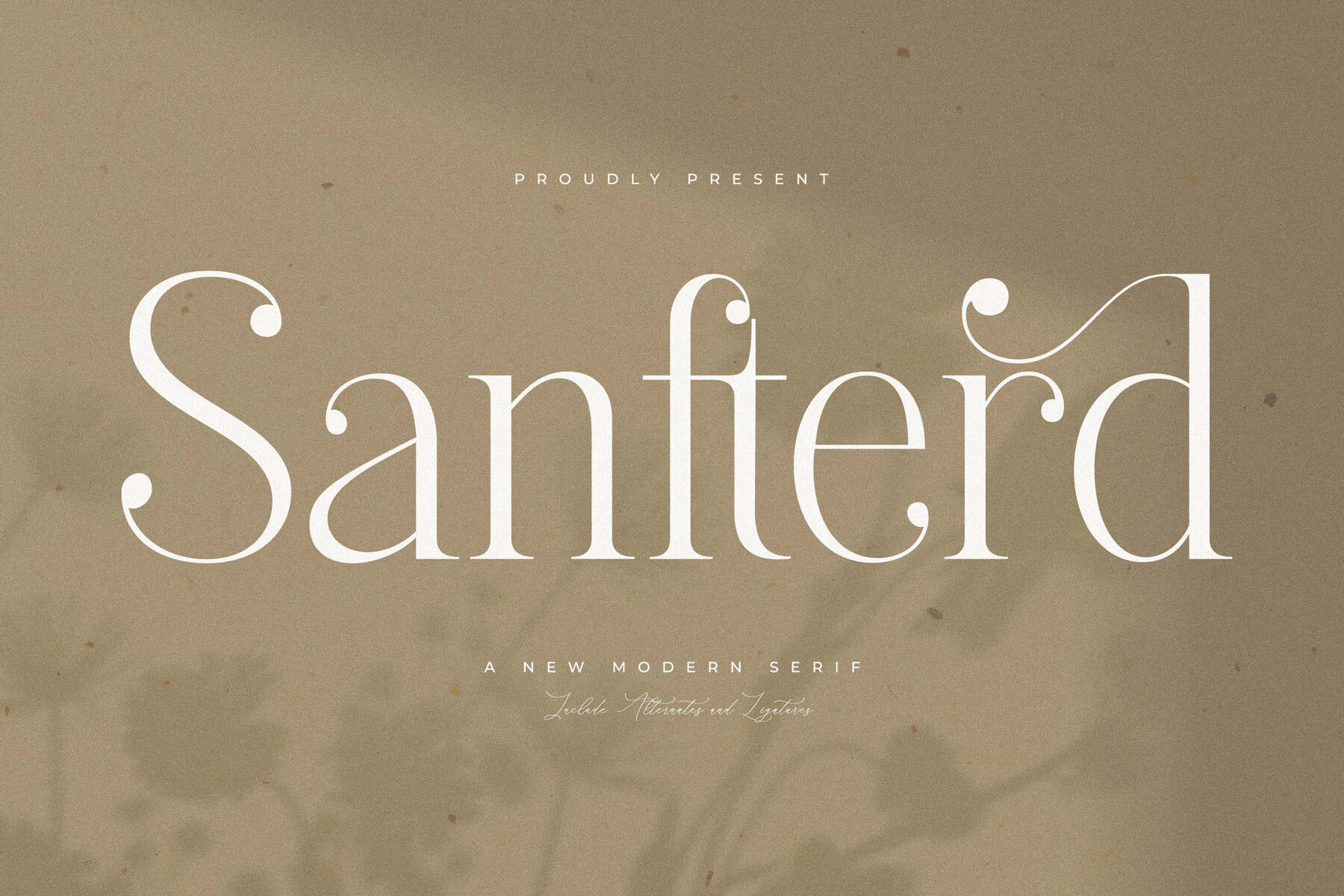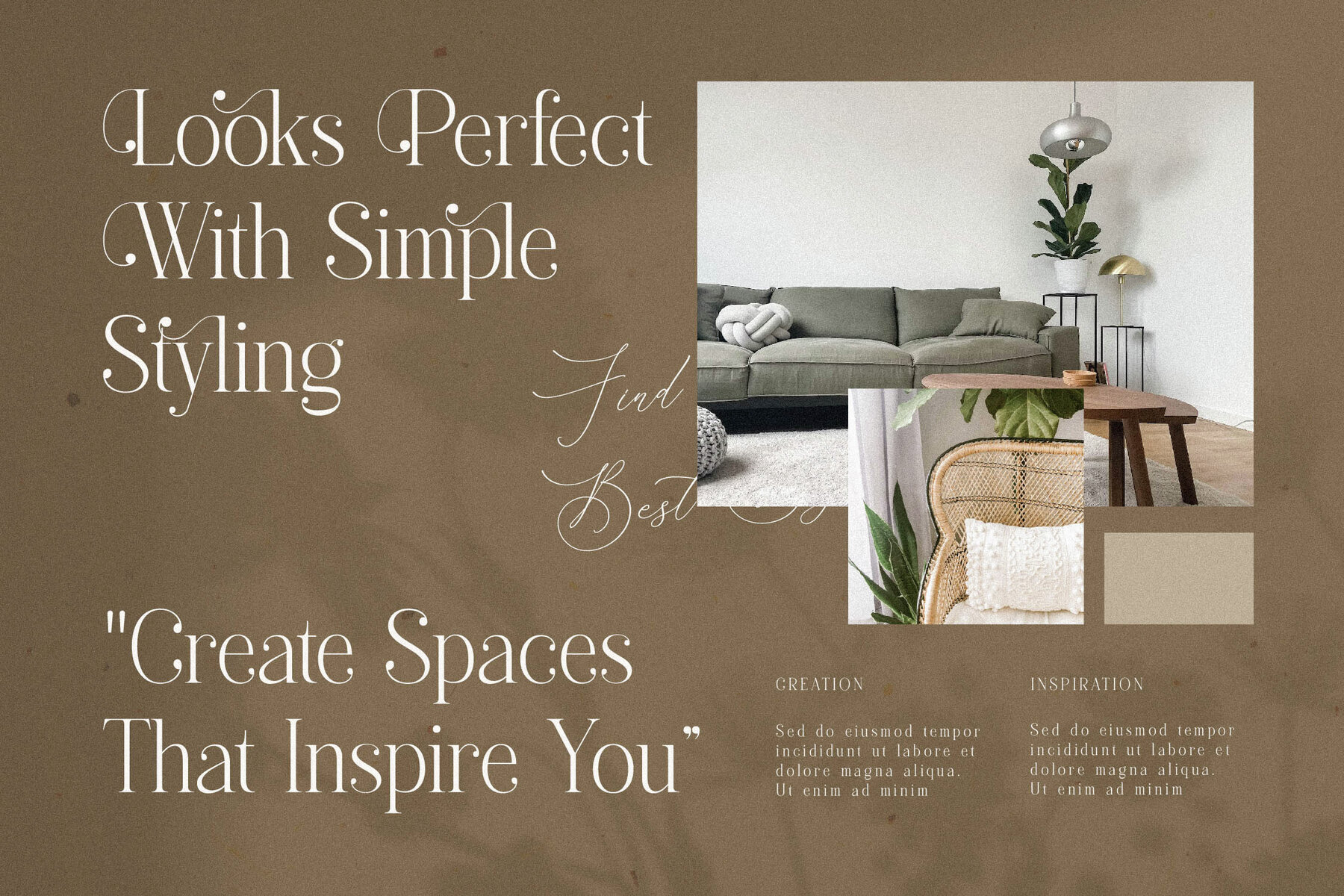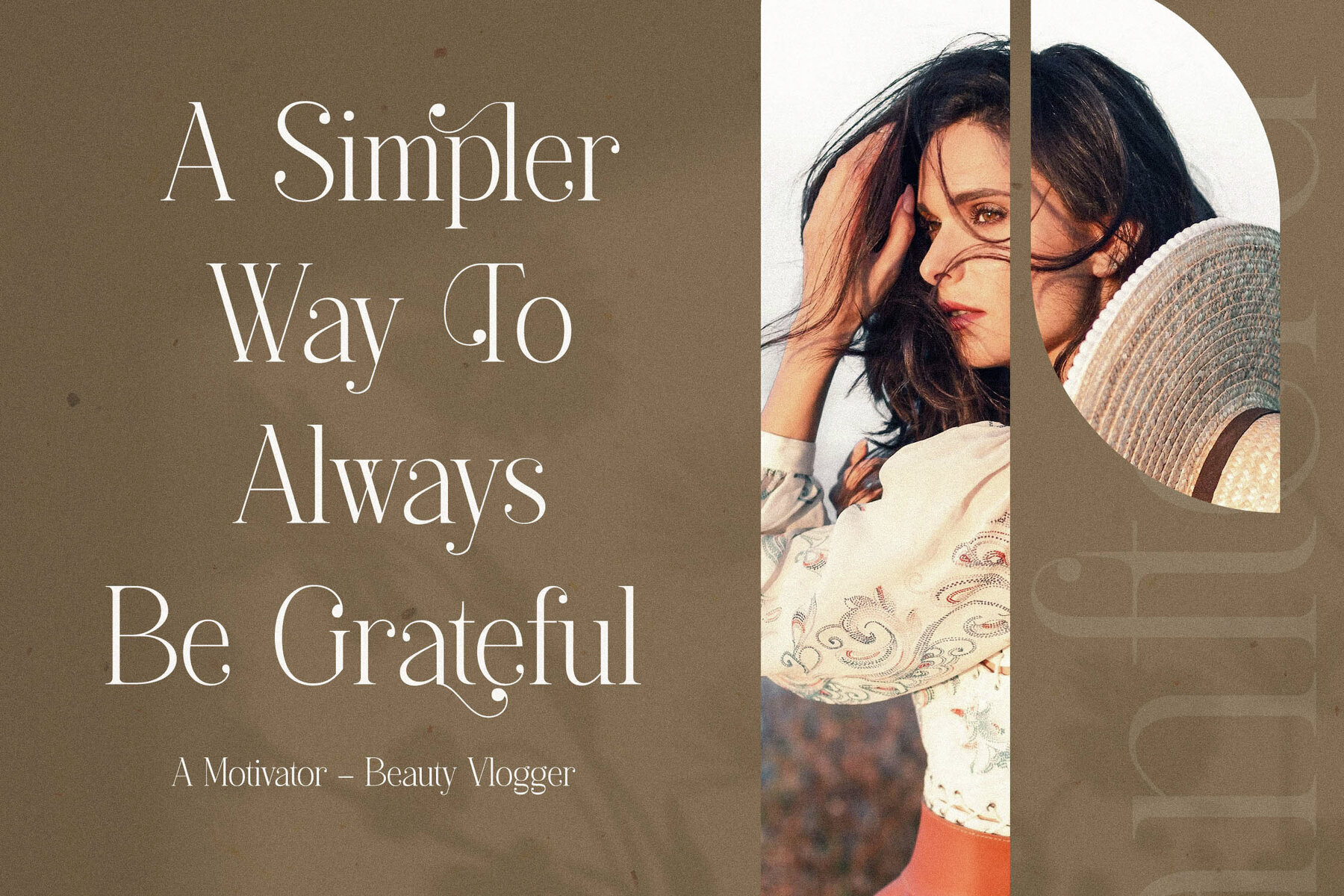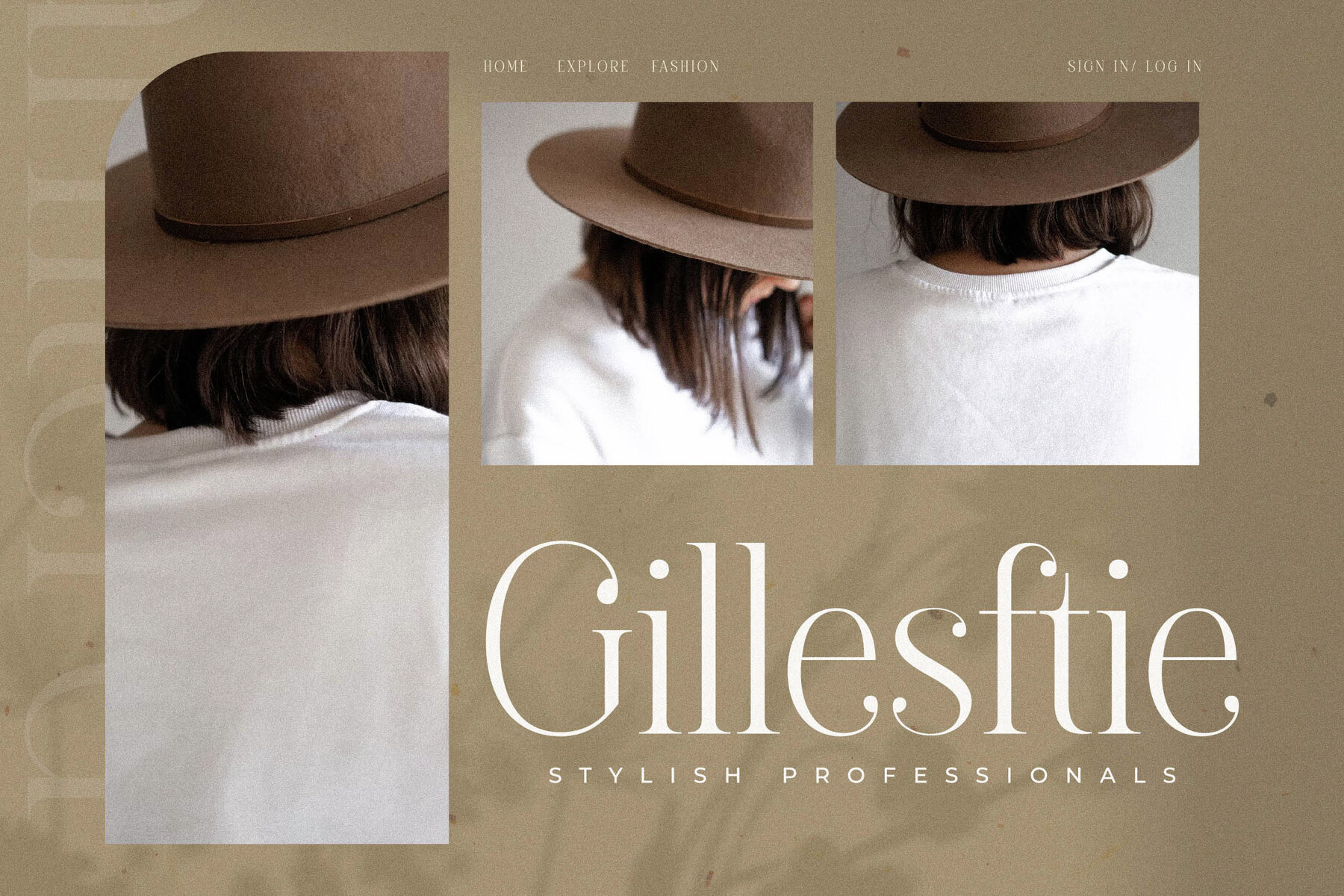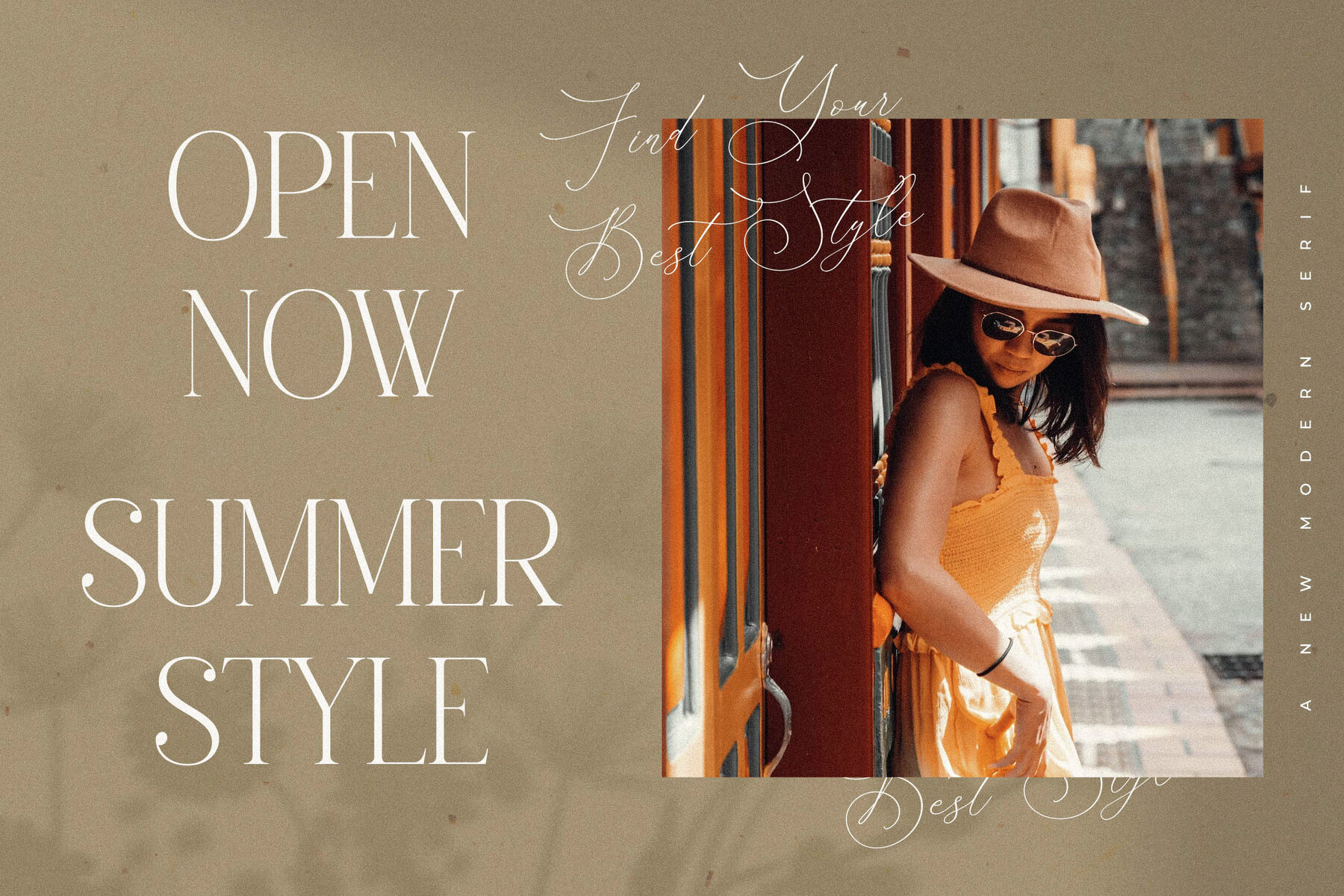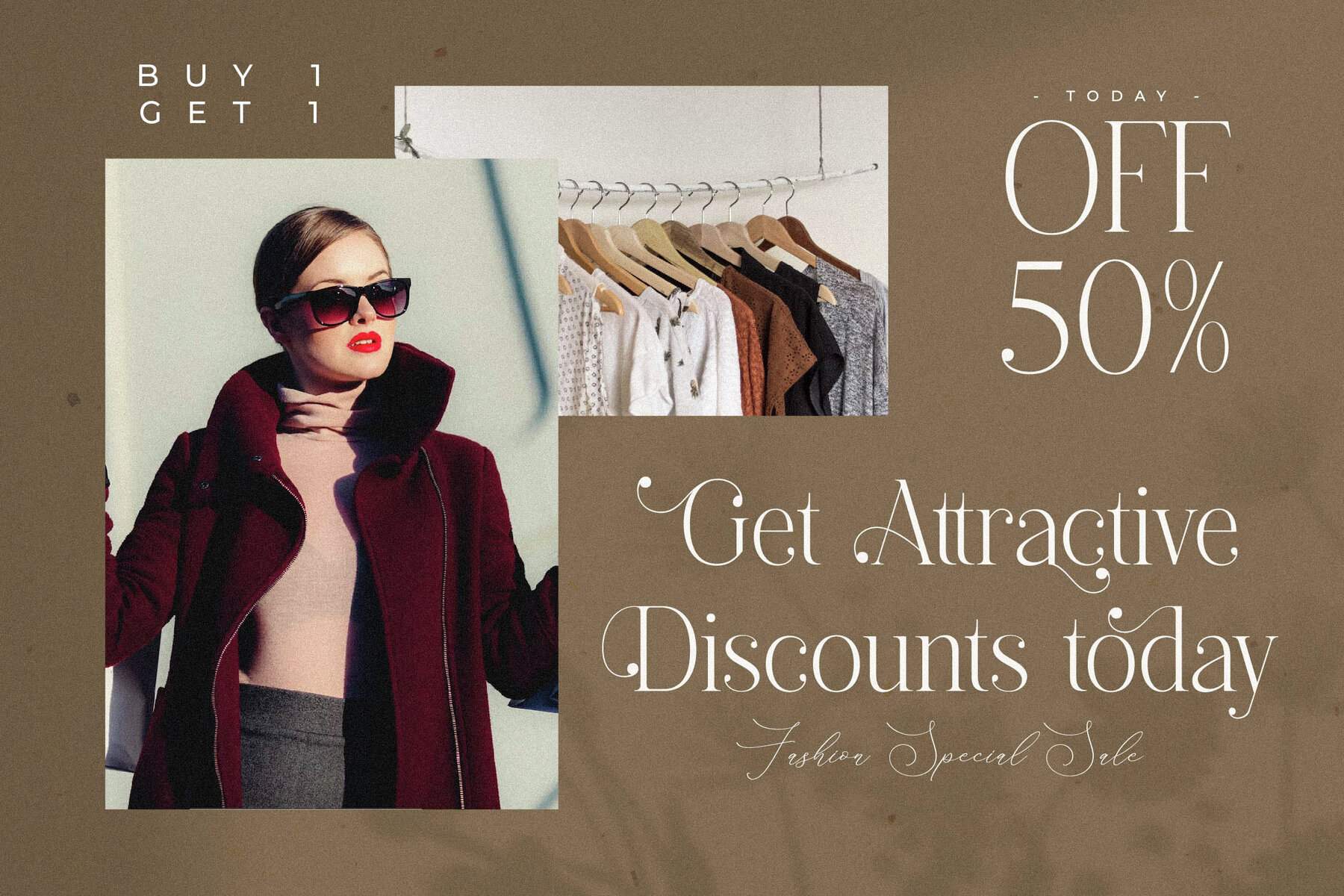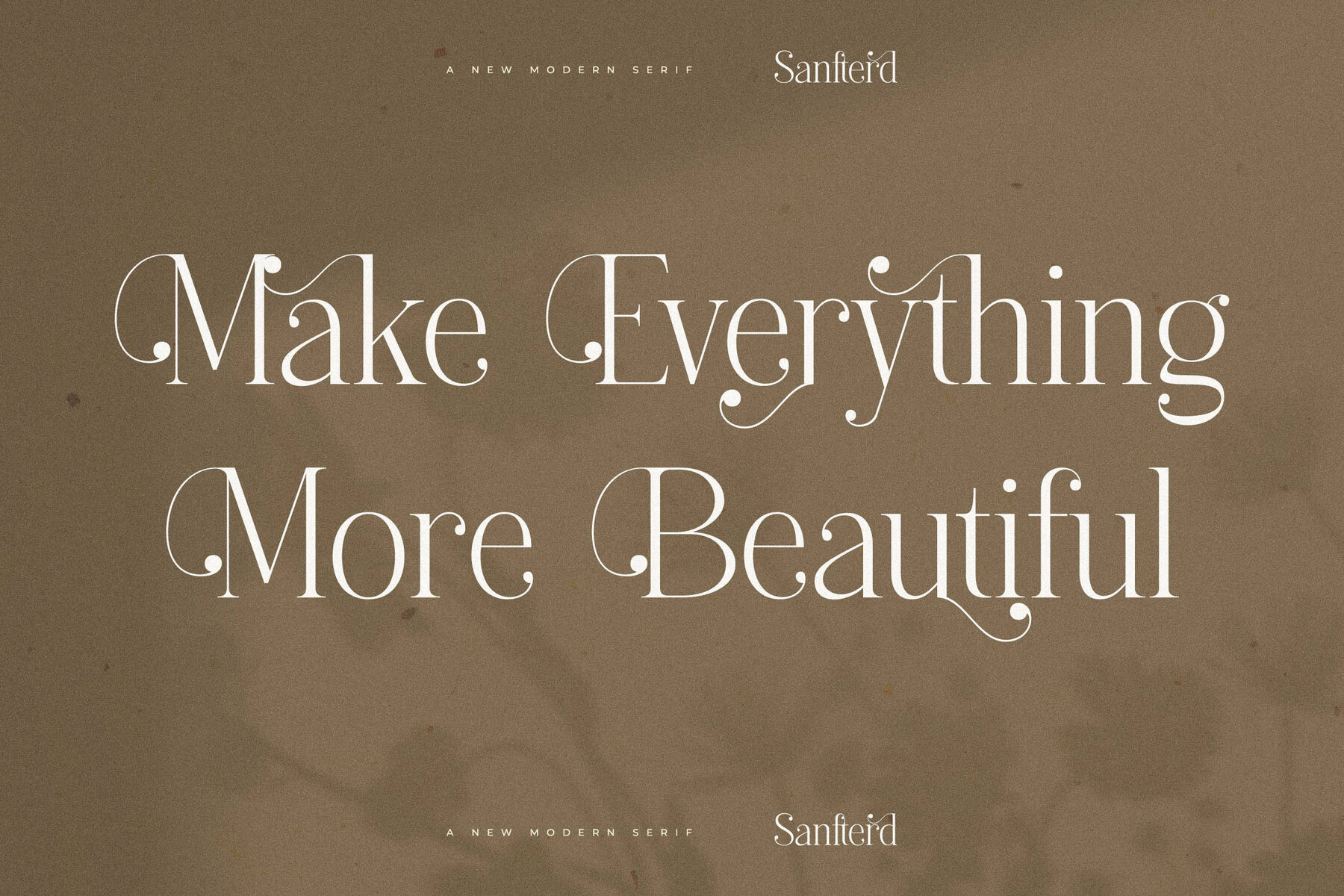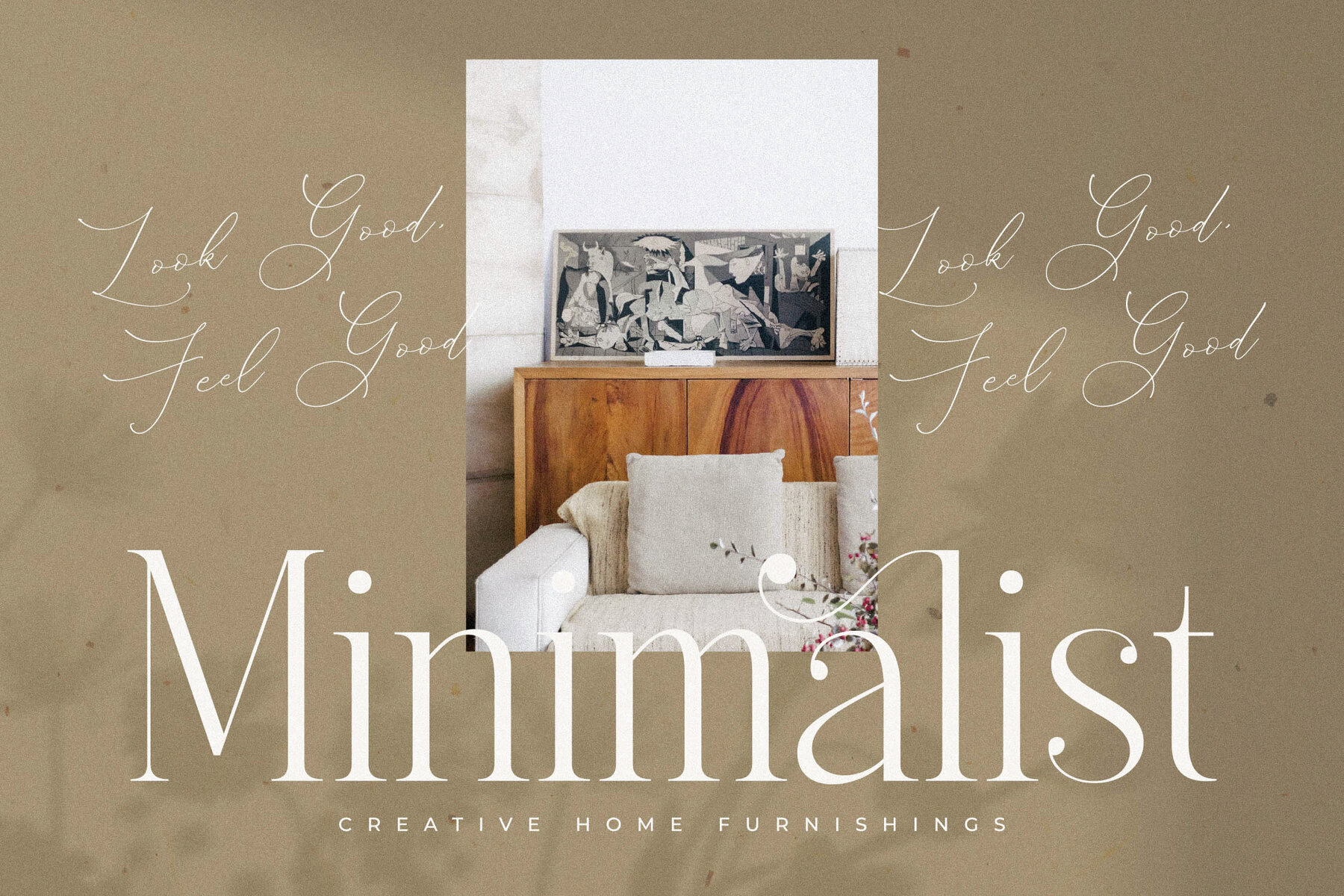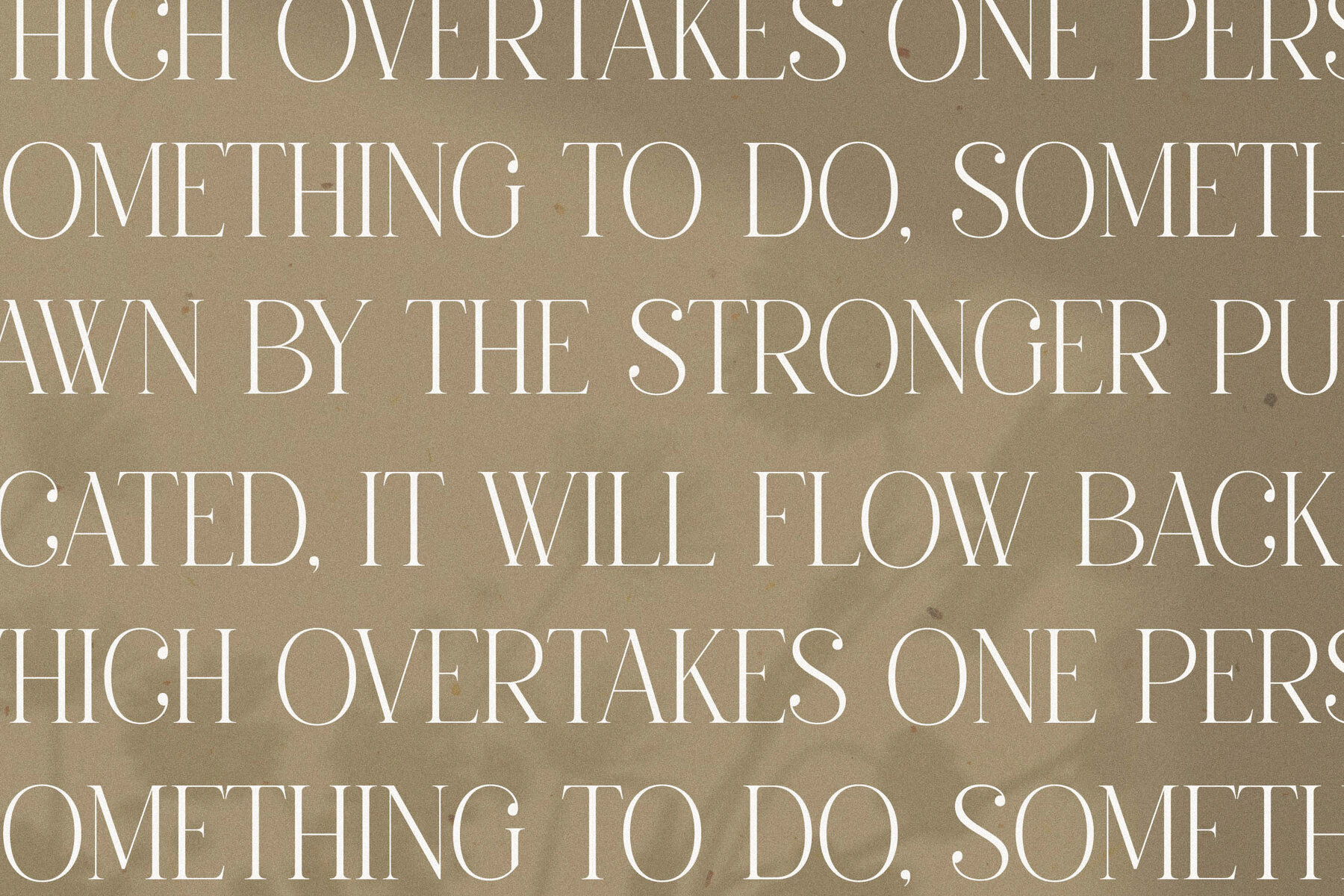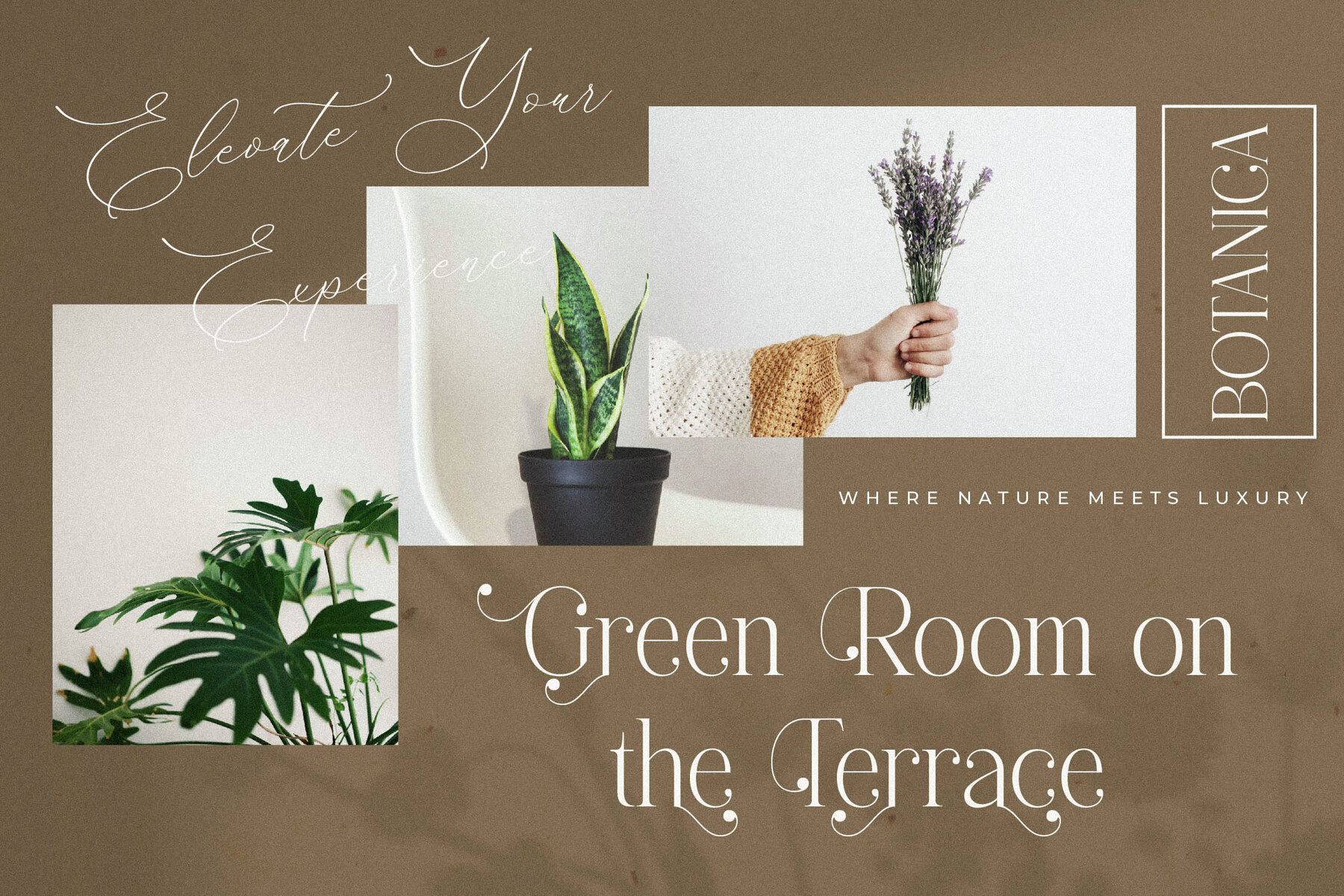
Sanfterd Font
Meet the Sanfterd Typeface, a harmonious blend of modern elegance and classic charm. Crafted with a unique style, this serif font is the perfect fit for luxury logos, book and movie title designs, high-end fashion brands, stylish magazine covers, and exquisite clothing lines. Whether you're crafting lettering or quotes, Sanfterd promises to deliver sophistication and allure to your projects.Sanfterd Typeface